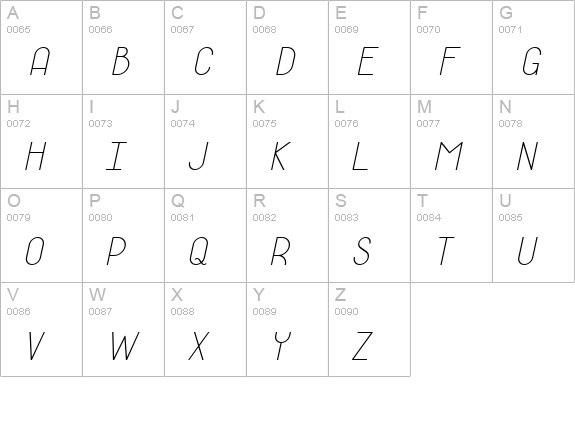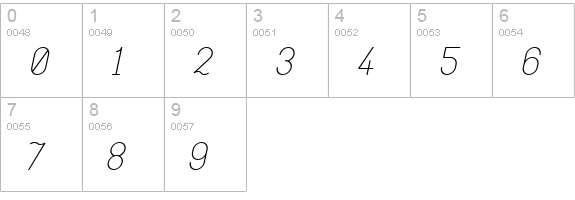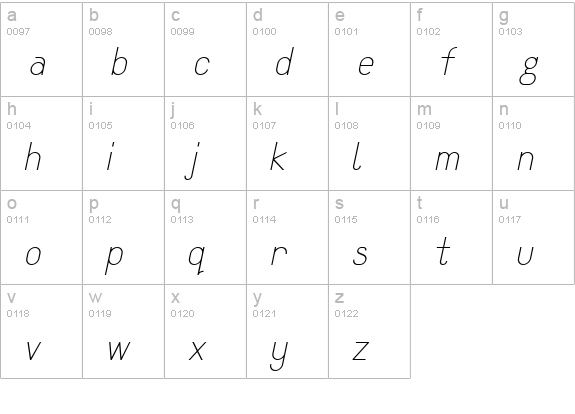
Bino Light Italic is a refined, elegant, italic variant in the Bino typeface family \xE2\x80\x94 well suited to elegant body text, refined sub-headings, and luxury branding.
Bino Light Italic font is a sophisticated and elegant typeface designed to bring a touch of modernity to your projects. Its delicate and graceful letterforms make it perfect for adding a refined touch to any design. The soft curves and subtle slant of the italic style create a sense of movement and sophistication, making it an ideal choice for conveying a sense of elegance and style. This versatile font is perfect for a wide range of design projects, from invitations and greeting cards to branding and packaging. Its clean and legible design ensures that your message will always be communicated with clarity and style. Best of all, Bino Light Italic font is available for free download at FontsMarket.com. So you can add this beautiful font to your collection without any cost, making it a valuable addition to your design toolkit. Download Bino Light Italic font today and elevate your designs with its timeless elegance and understated charm.